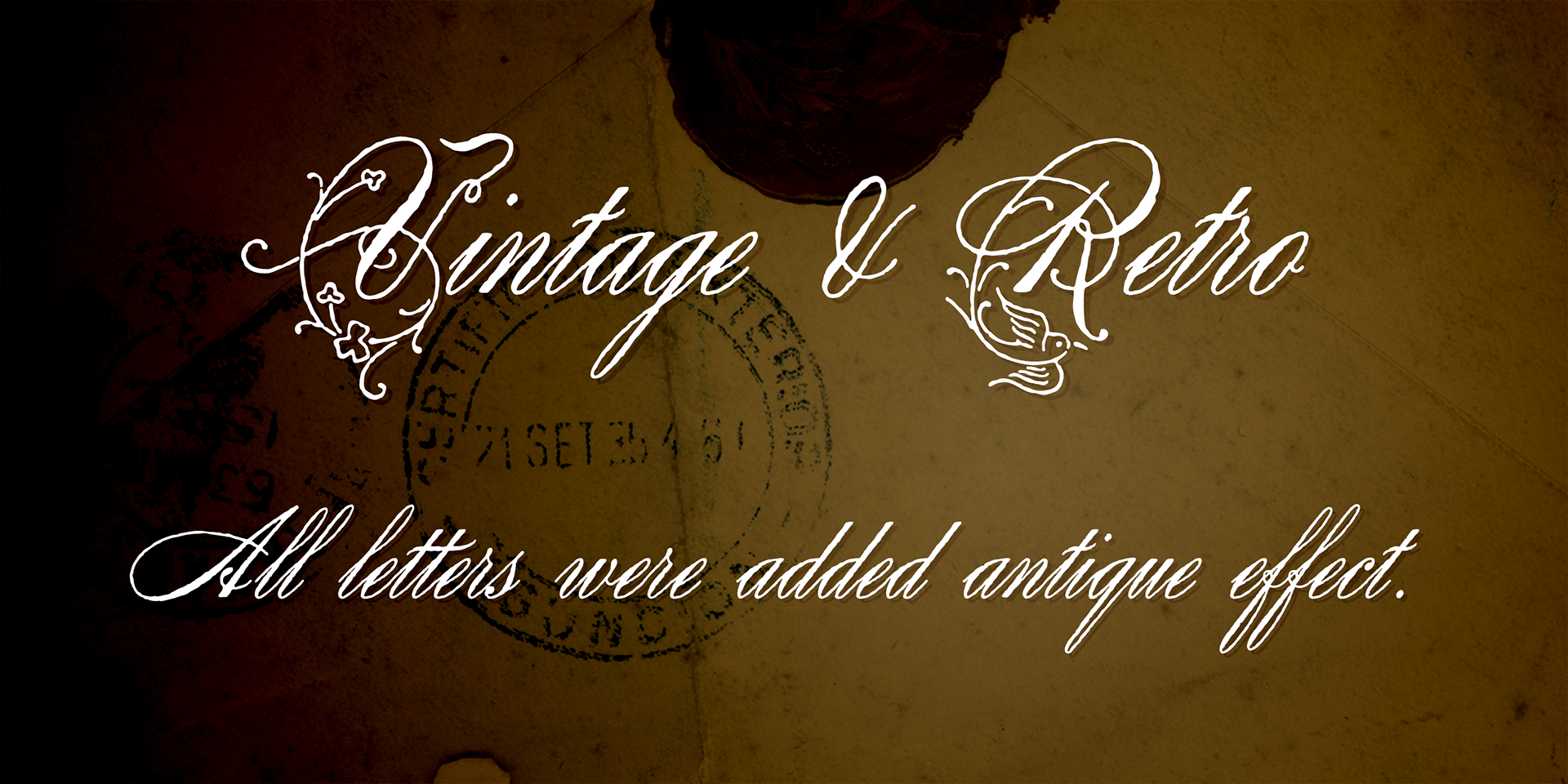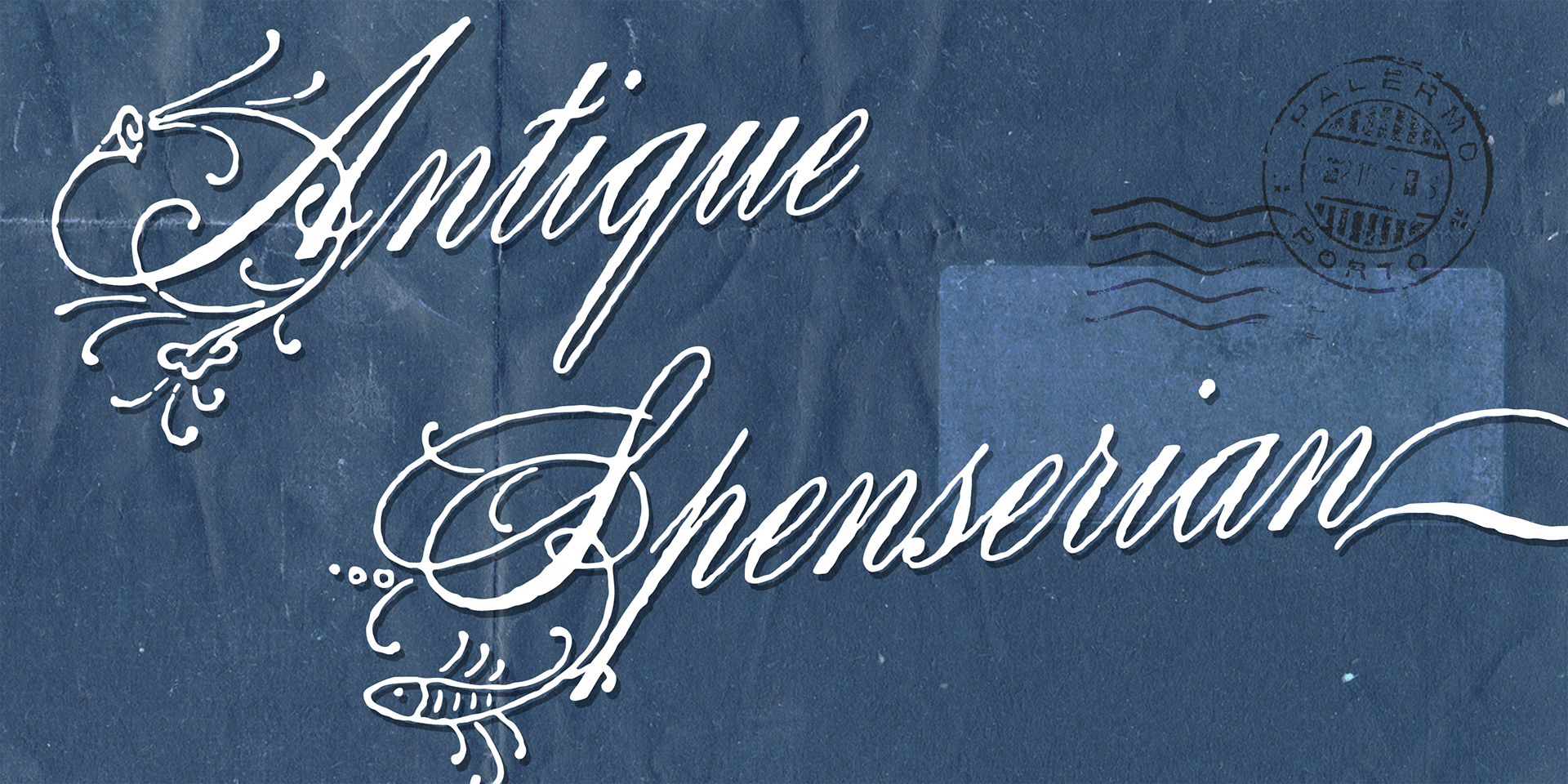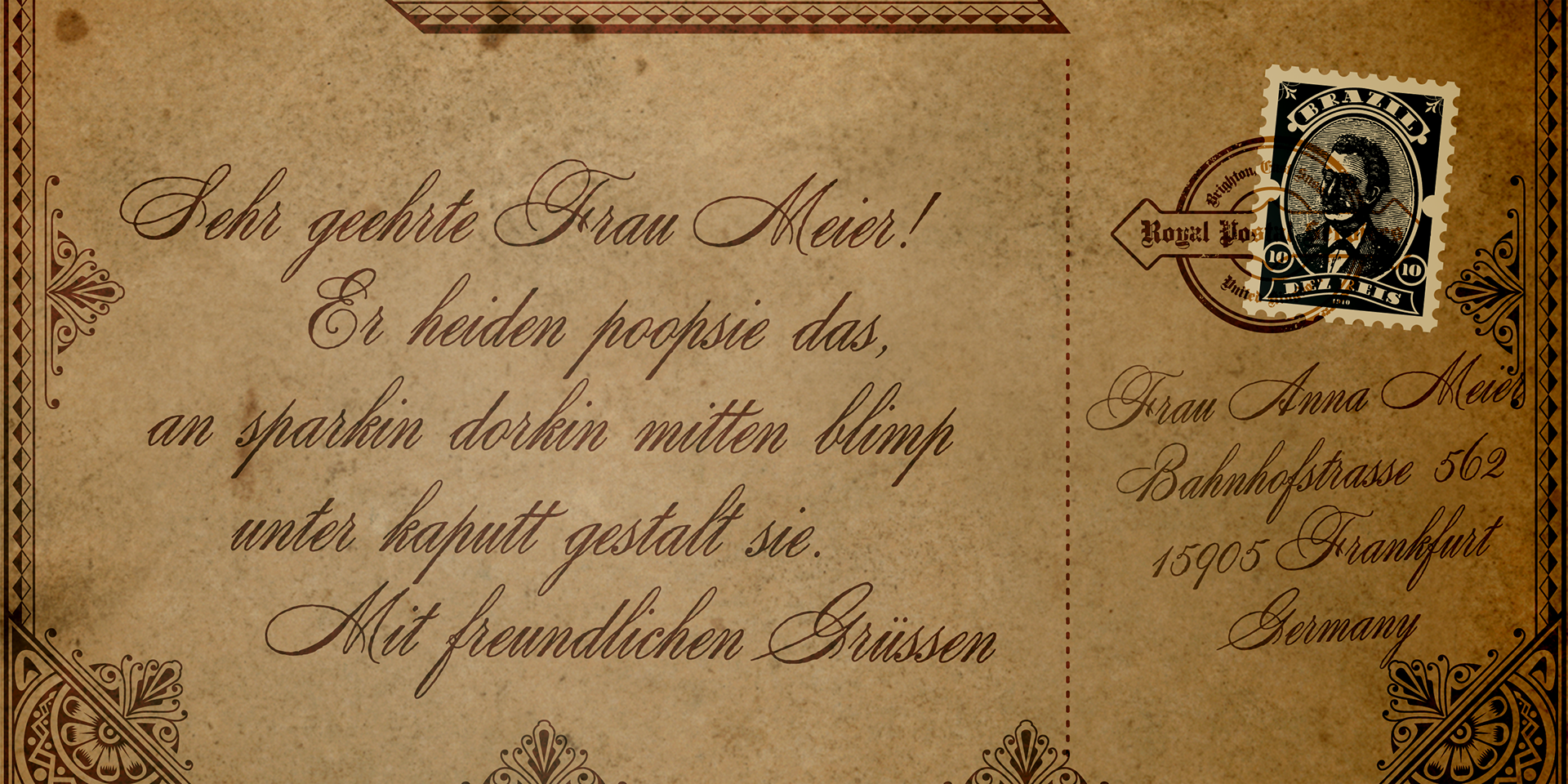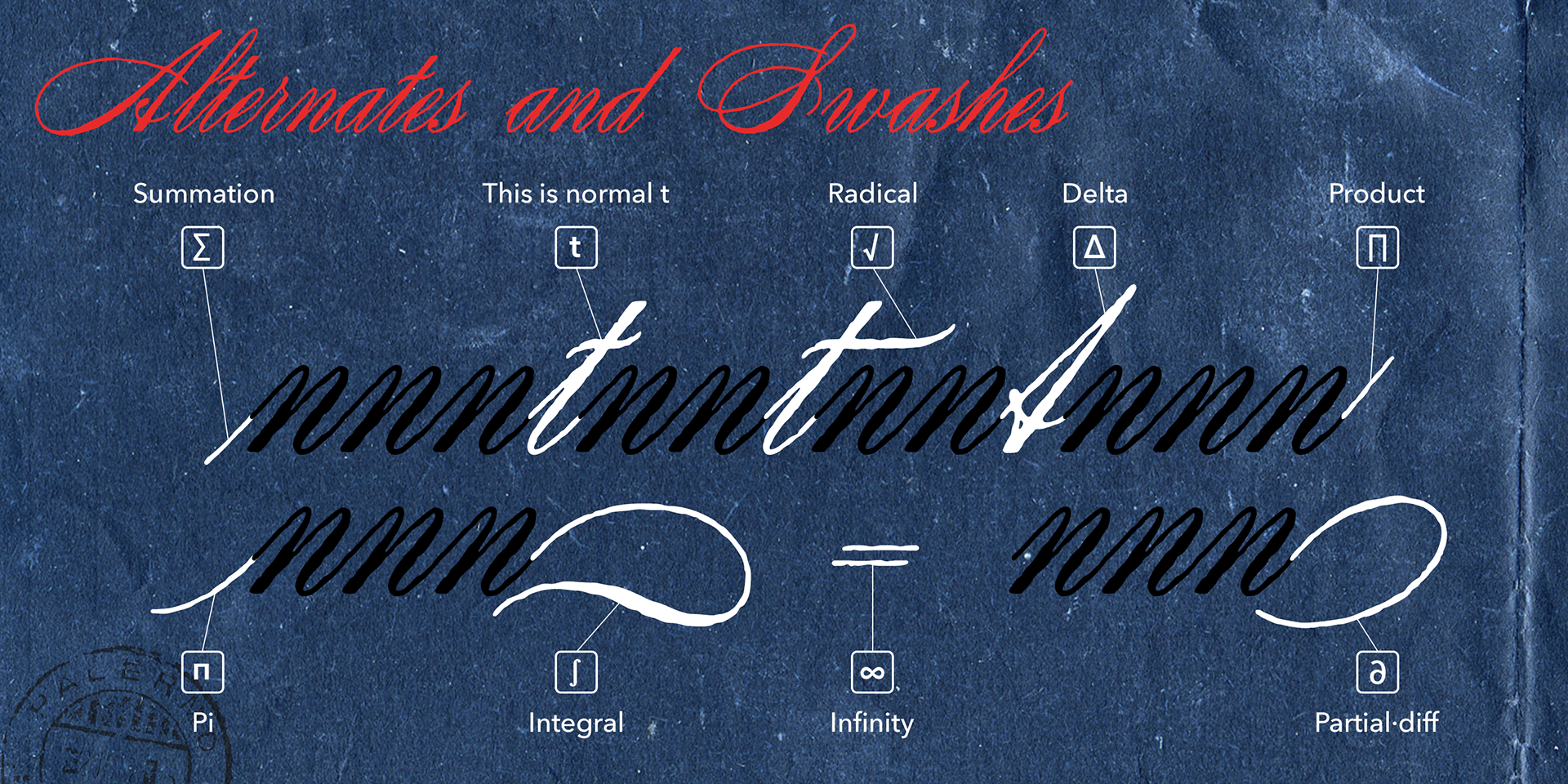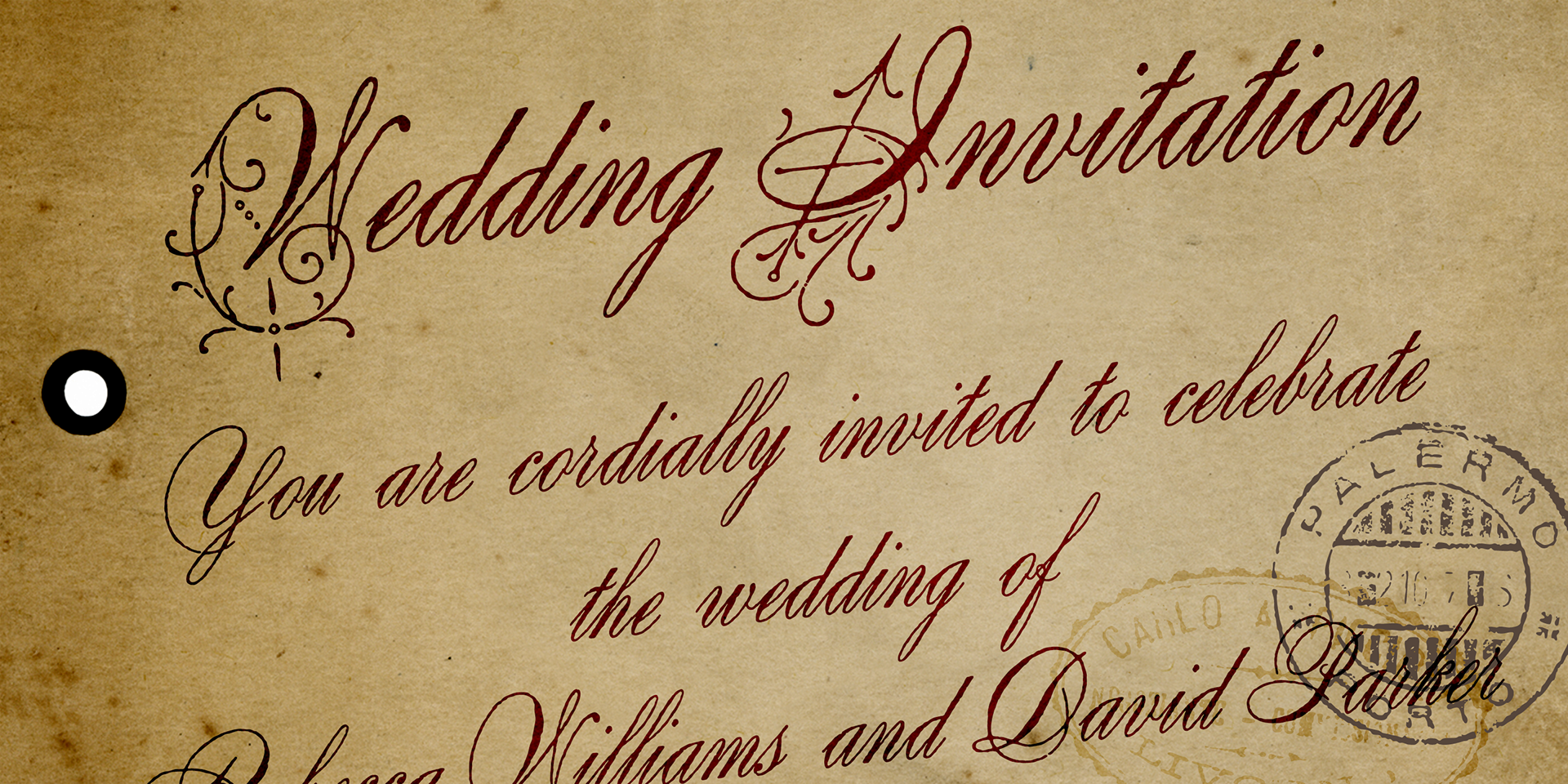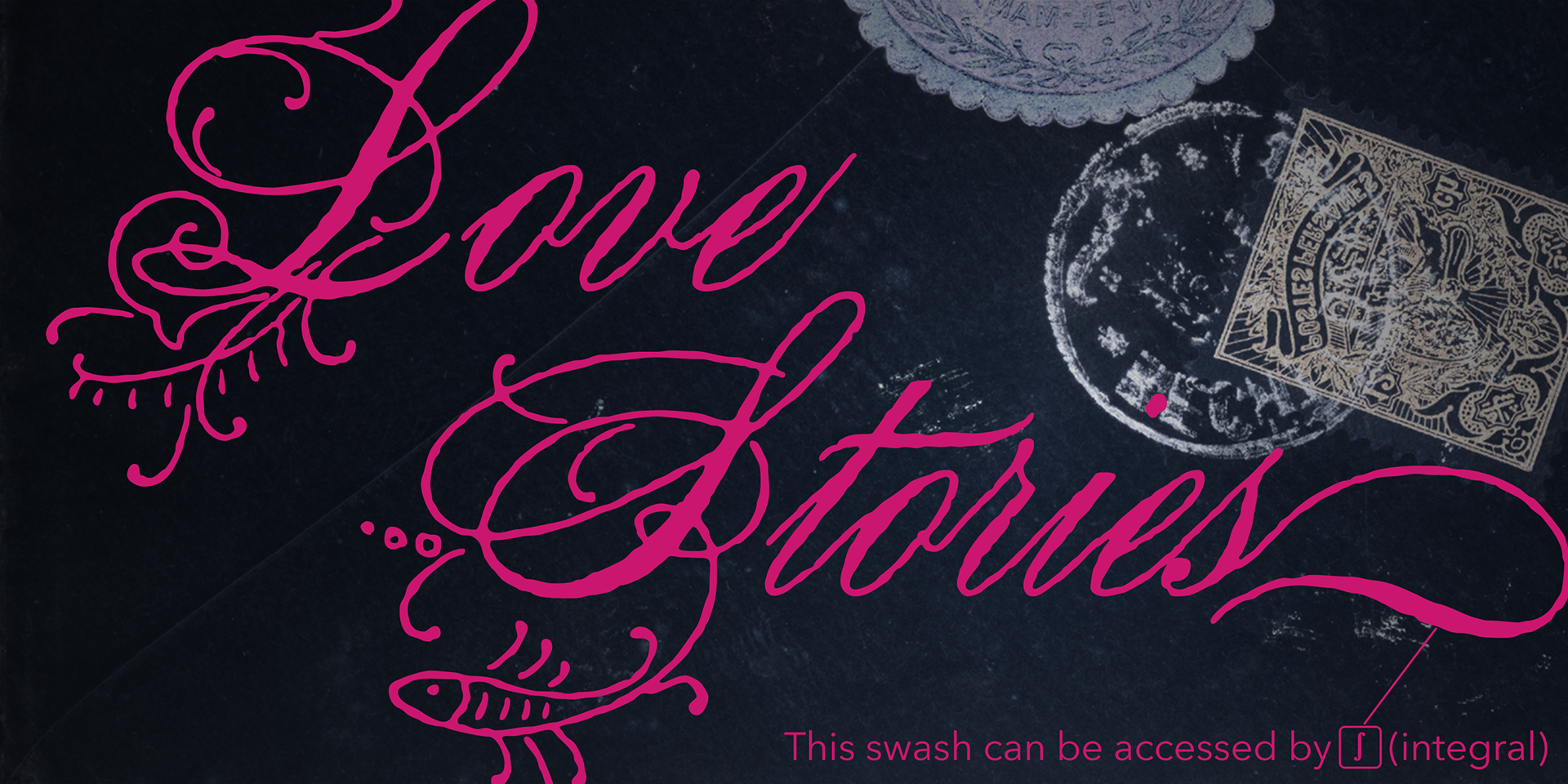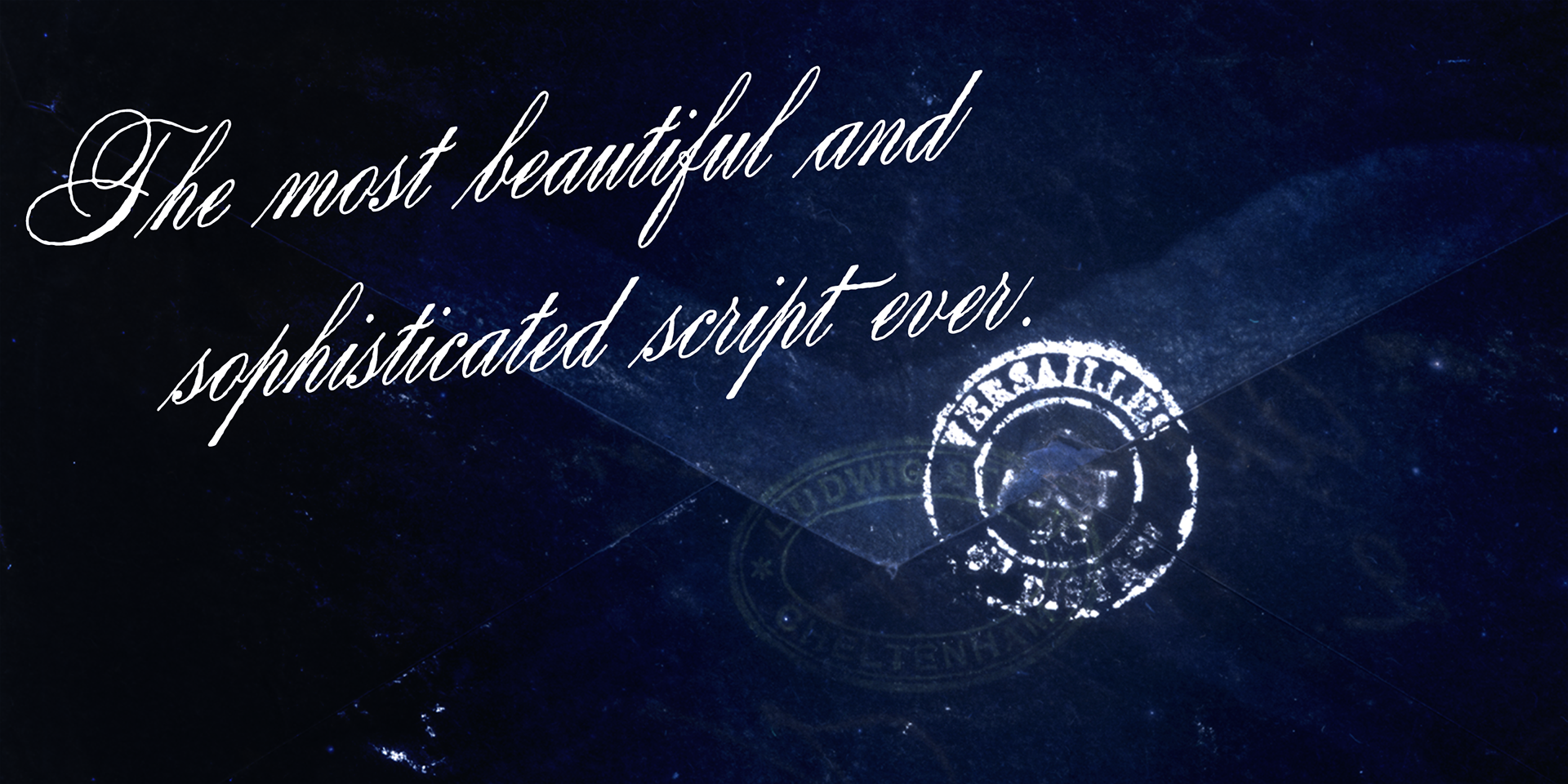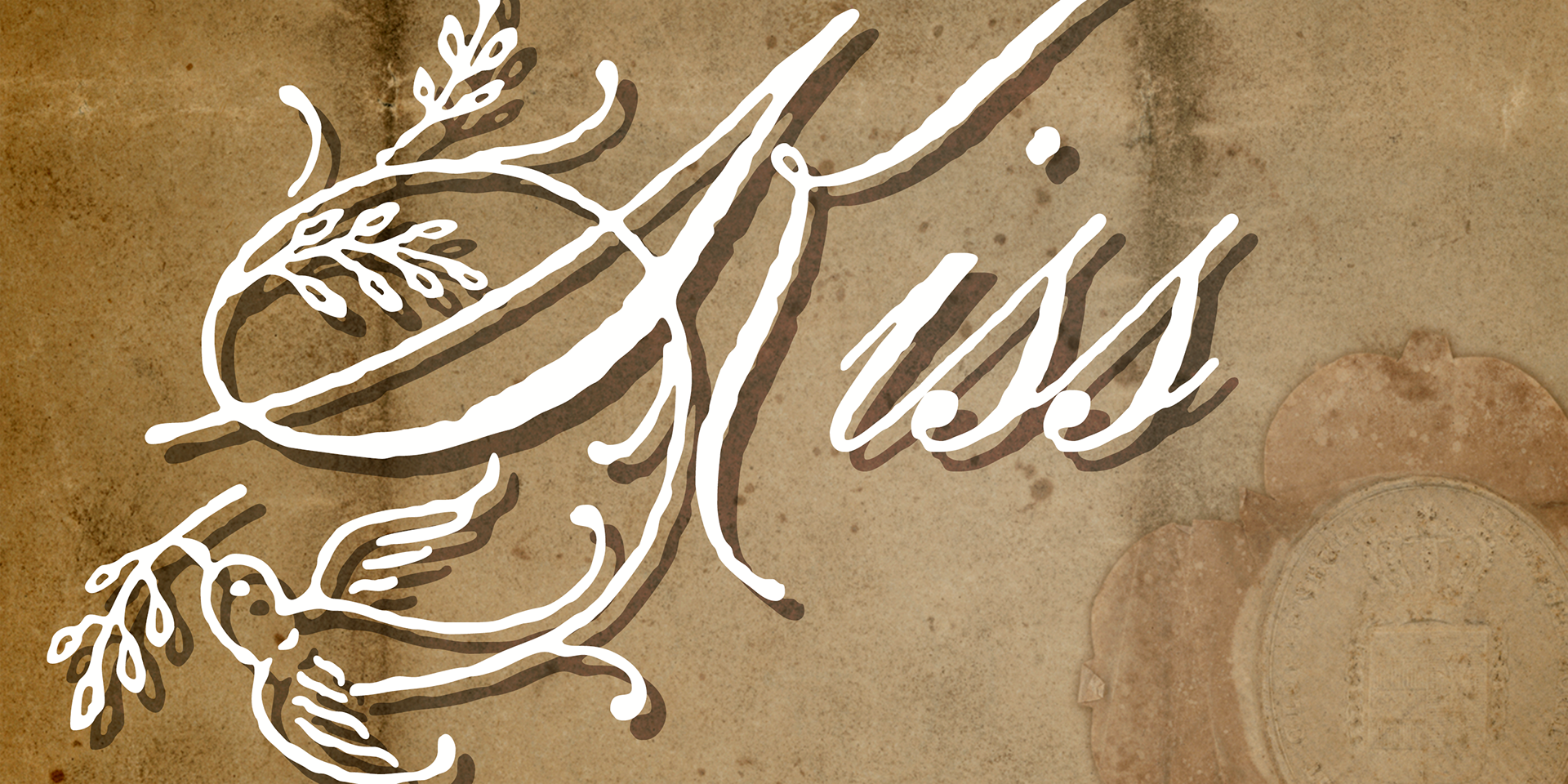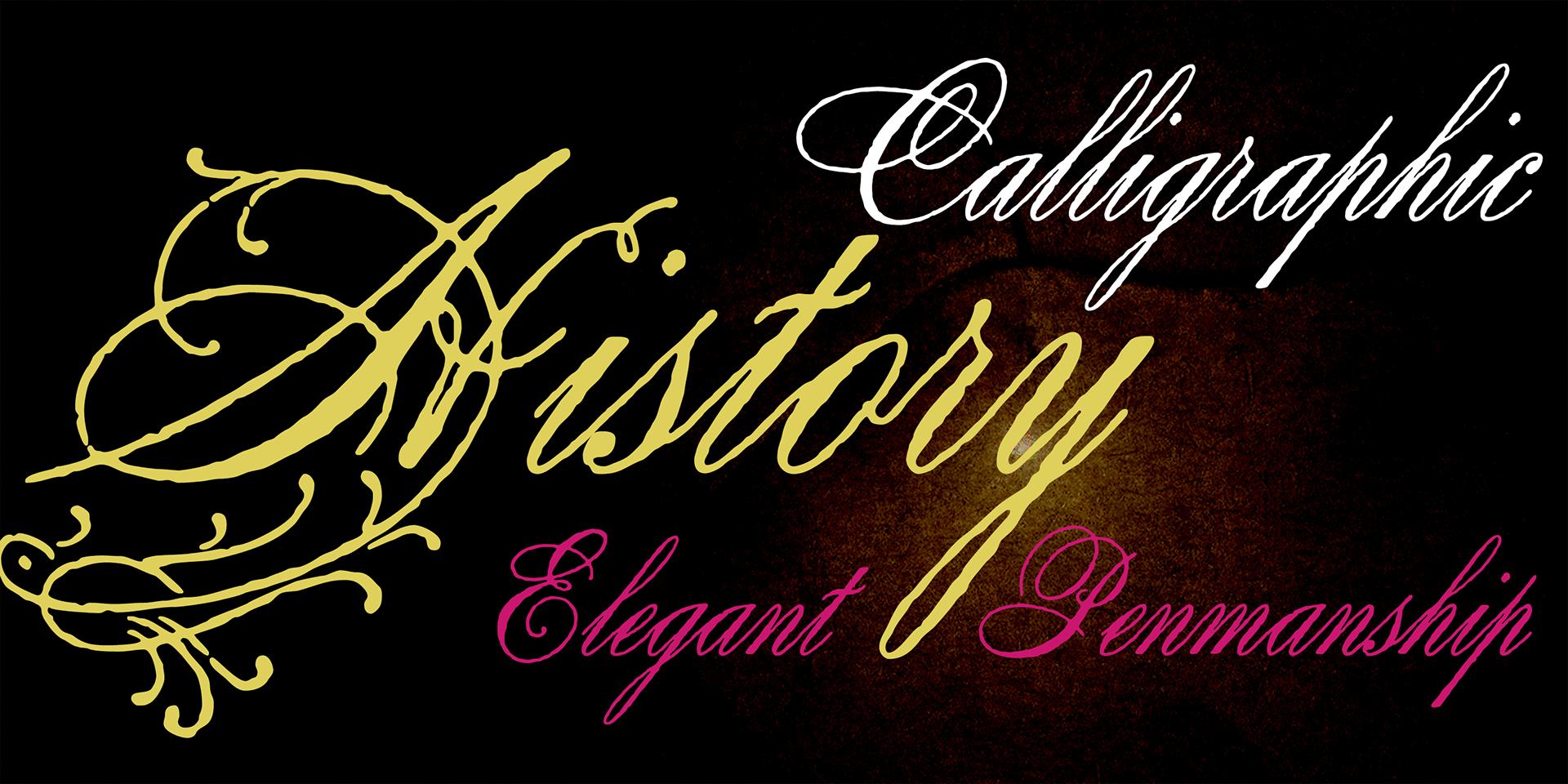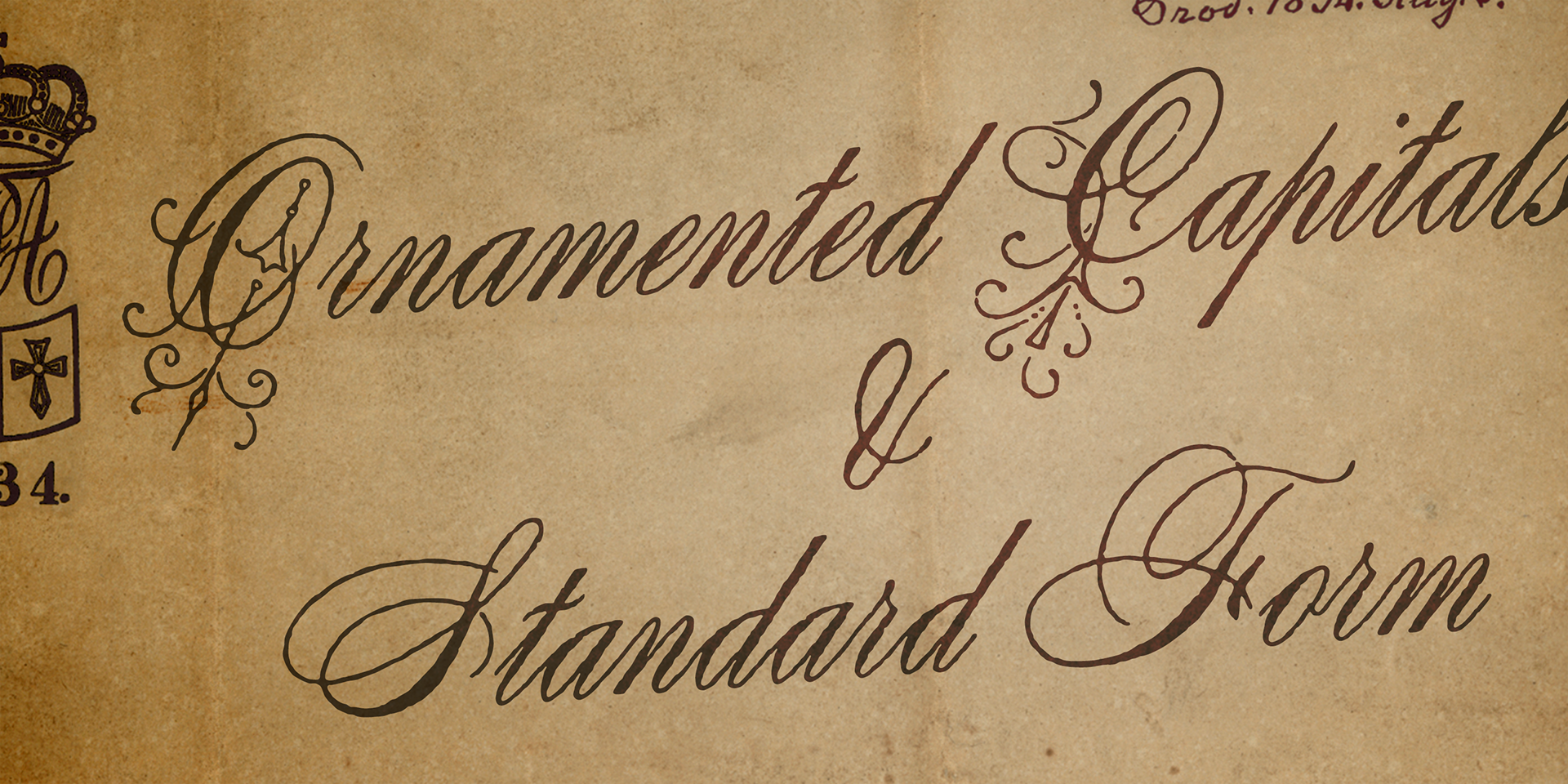
Antique Spencerian
This antique script is inspired by Spencerian script originally released by MacKellar, Smiths, & Jordan in the 19th century.
The family includes two styles: Standard and Ornamented Capitals.
The Standard style offers a classic, formal look, making it suitable for both text and display across a wide range of projects.
The Ornamented Capitals bring a more decorative, eye-catching flair, perfect for headlines, wedding invitations, logos, and other special design elements.
Each glyph has been carefully hand-distressed to achieve a natural antique texture, adding authenticity and charm to your typography.
Let your creativity flow and enjoy the distinctive elegance of this exclusive script family.